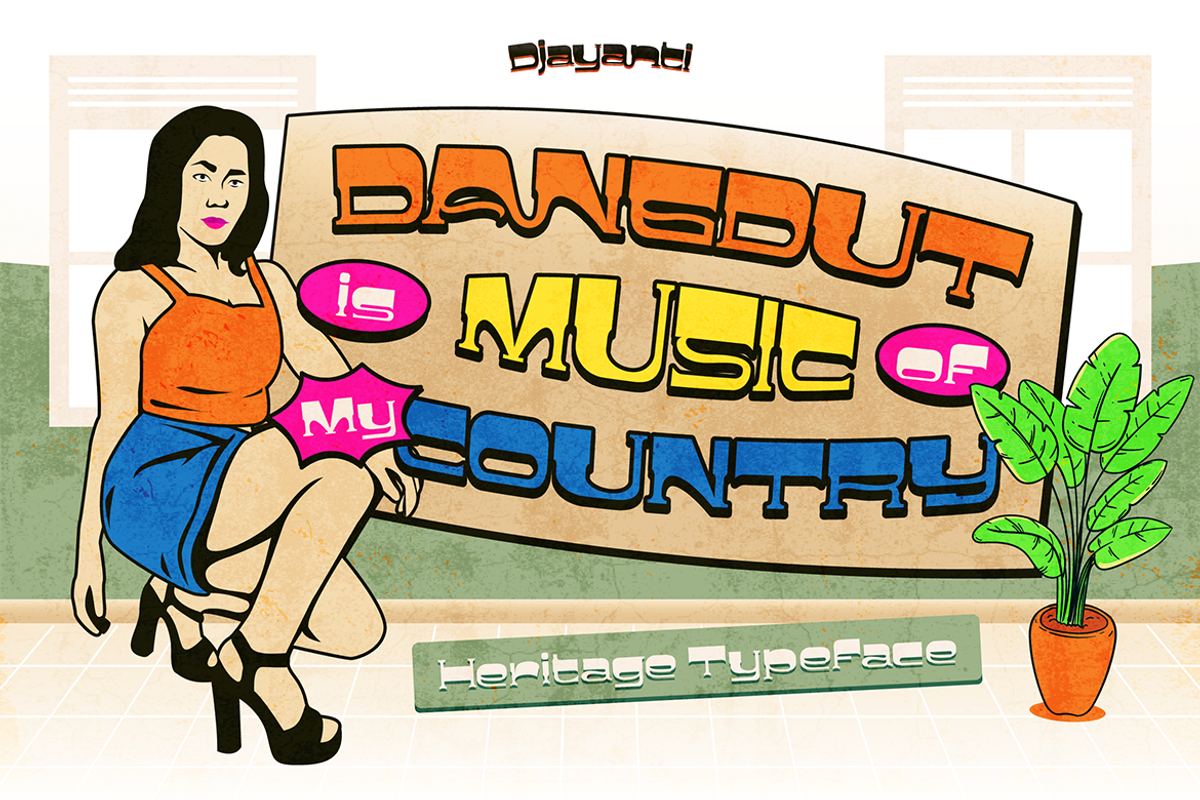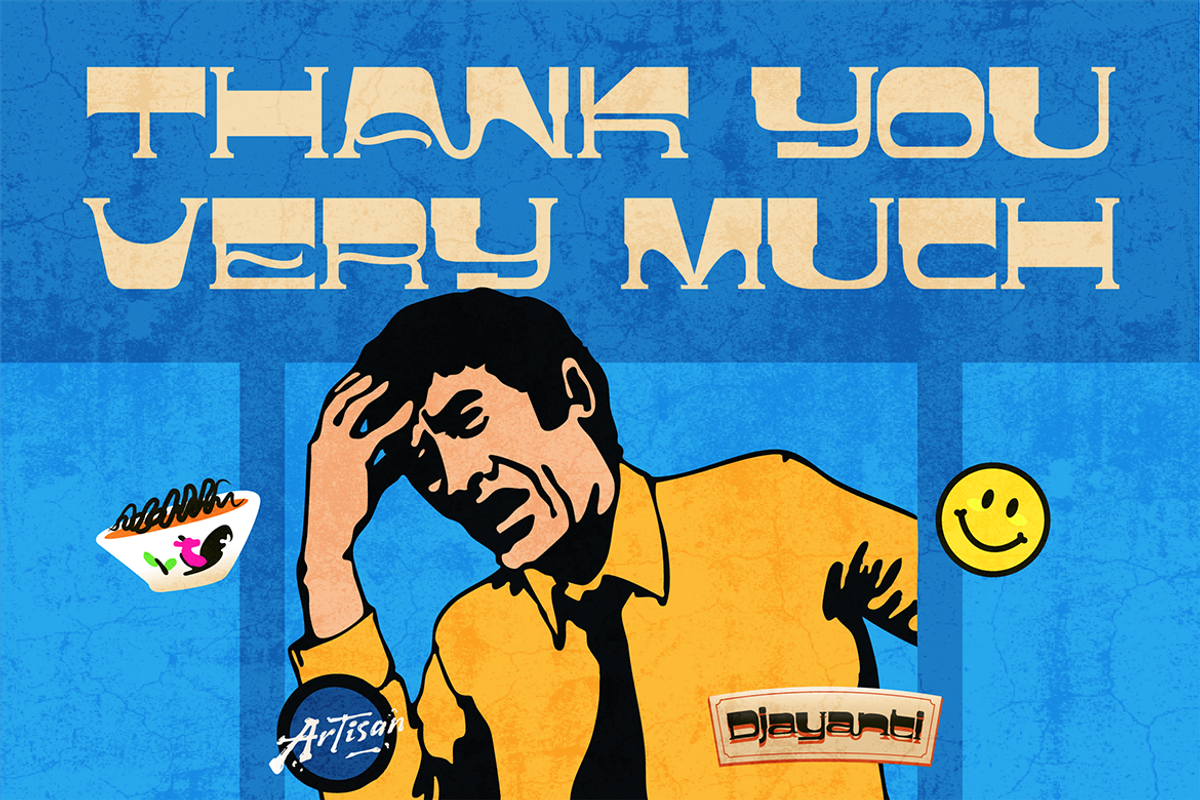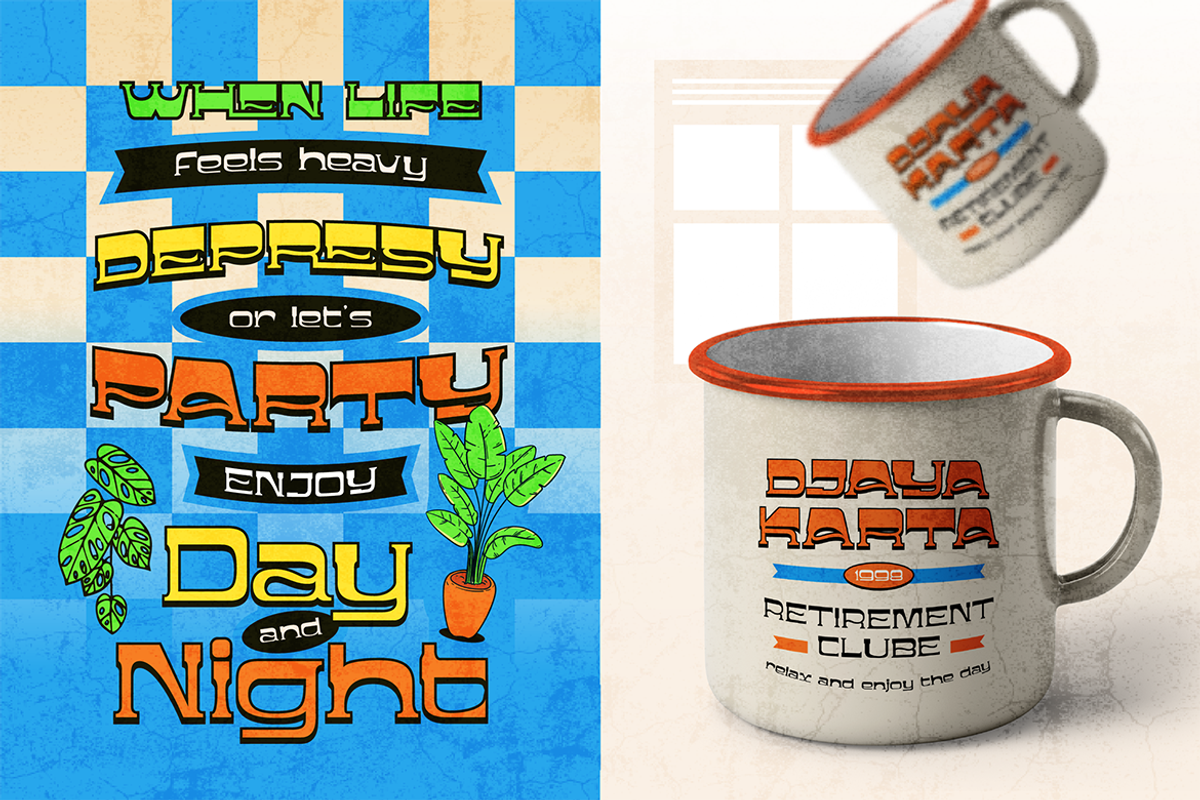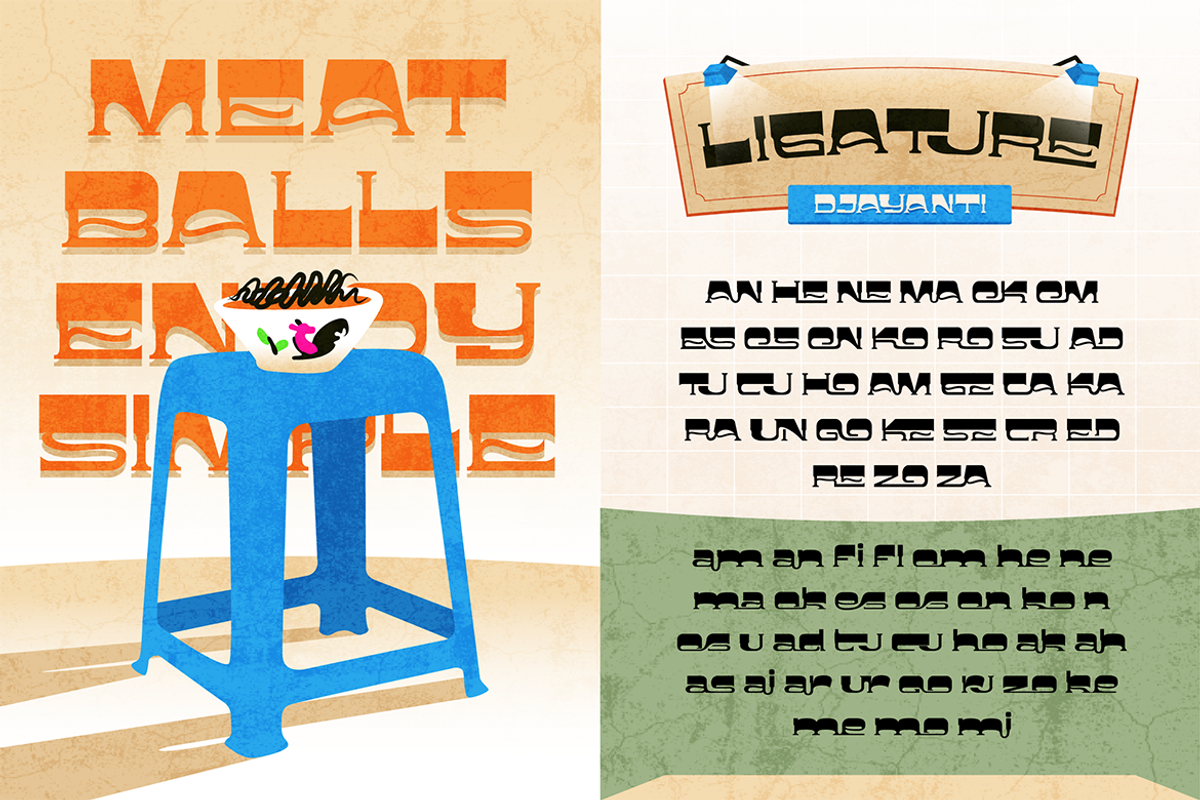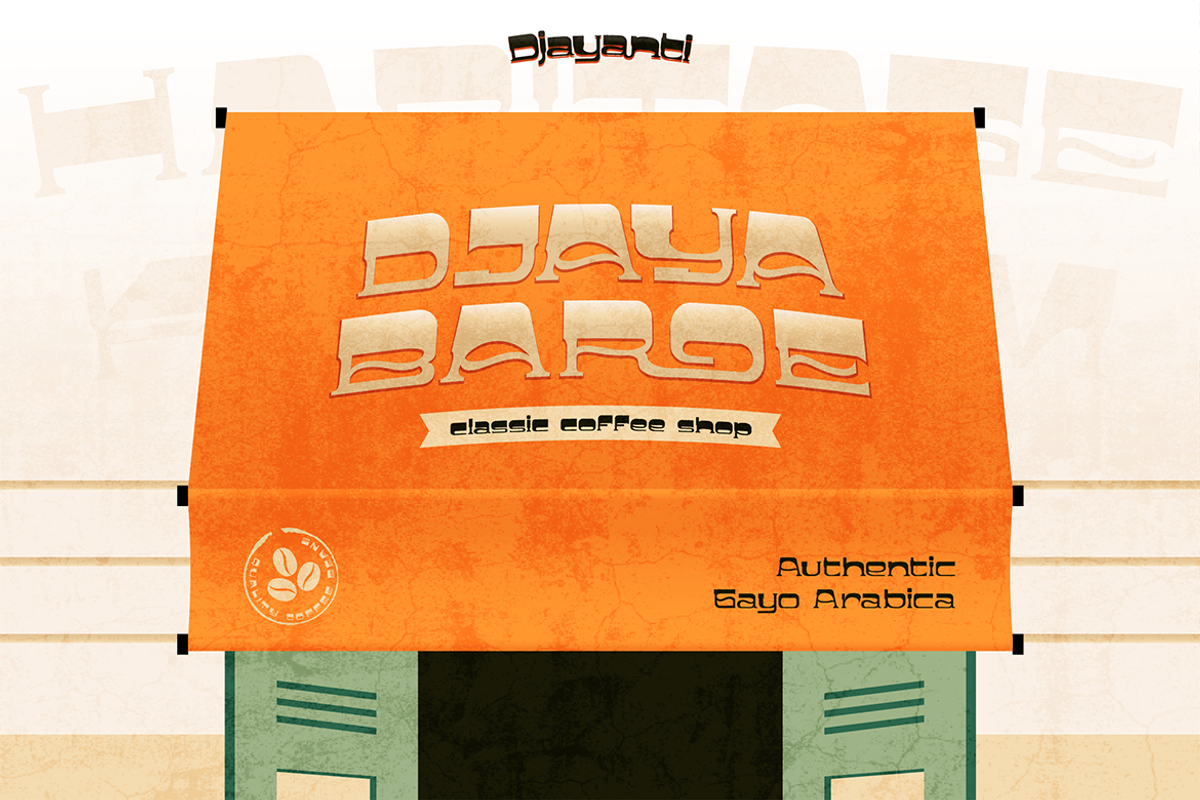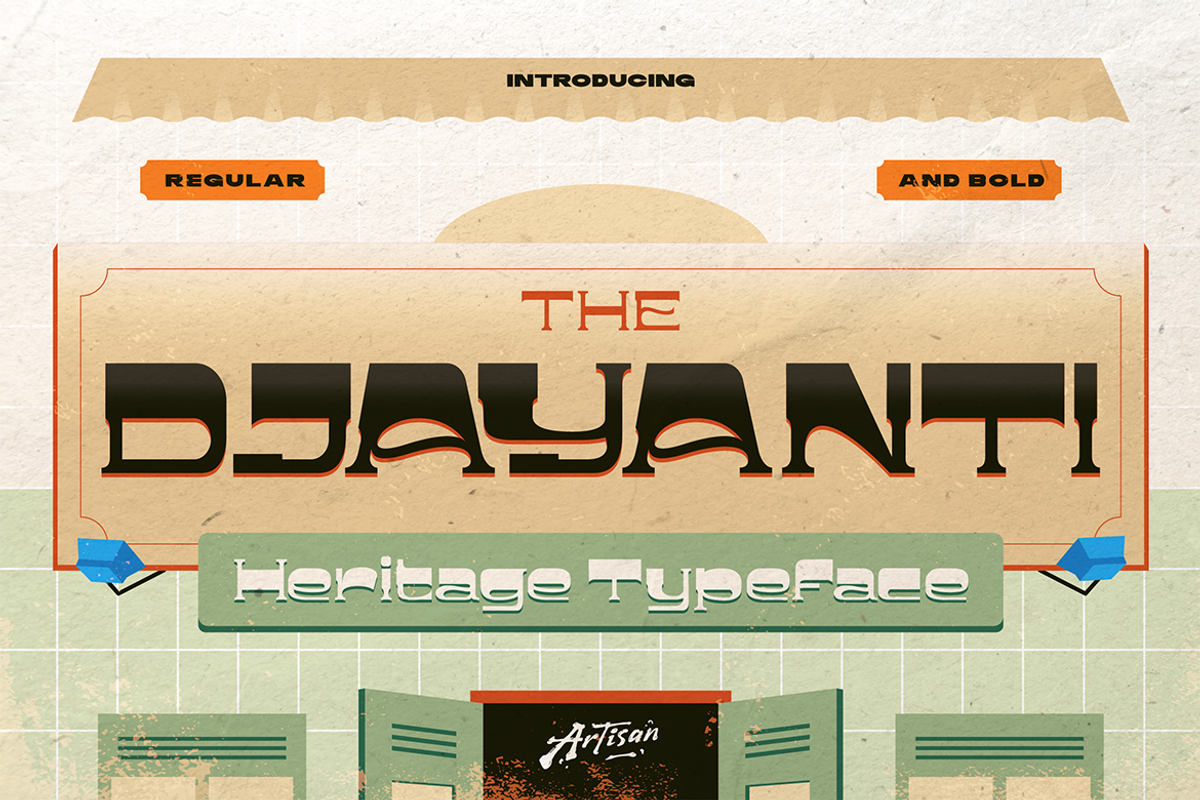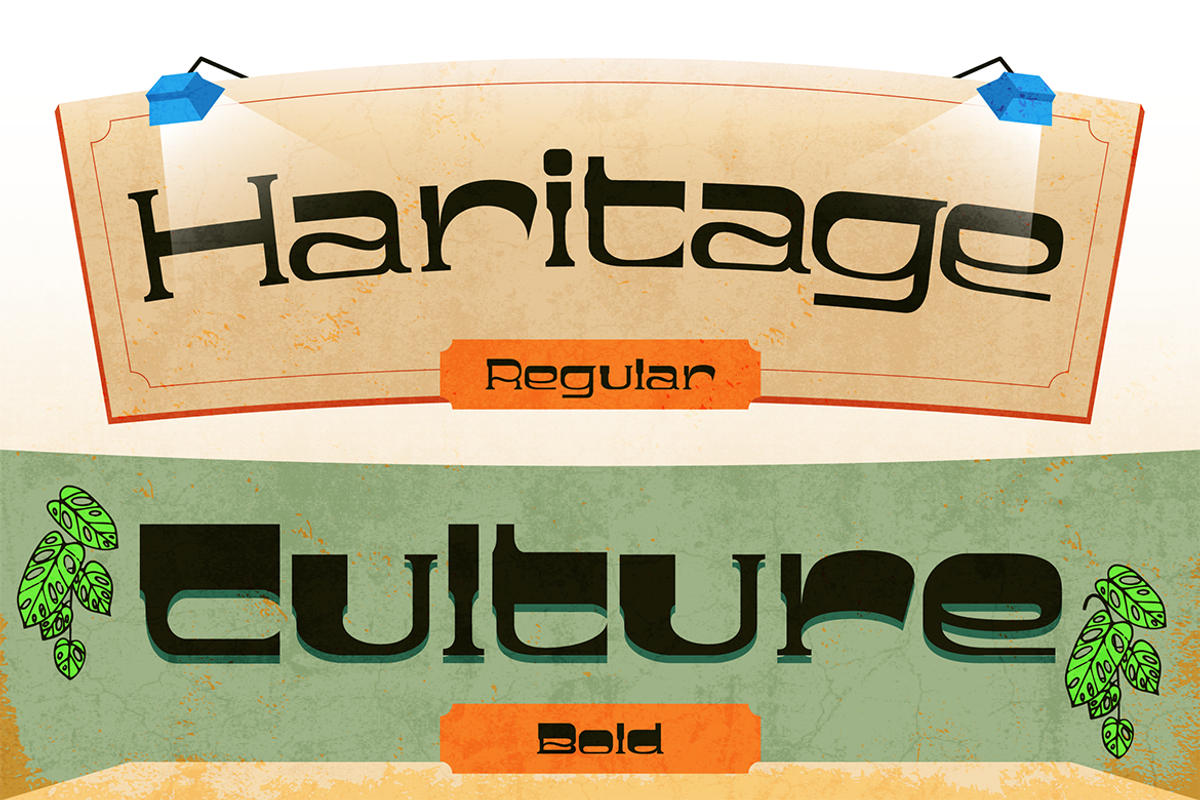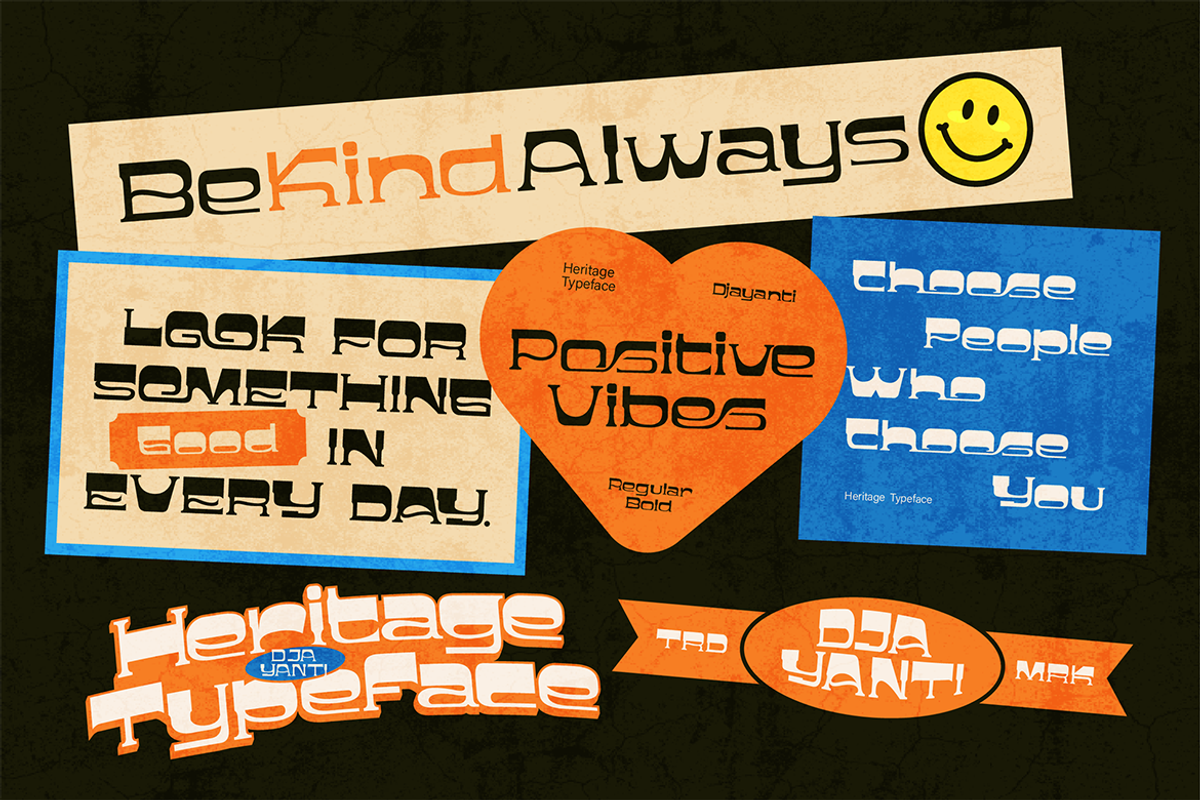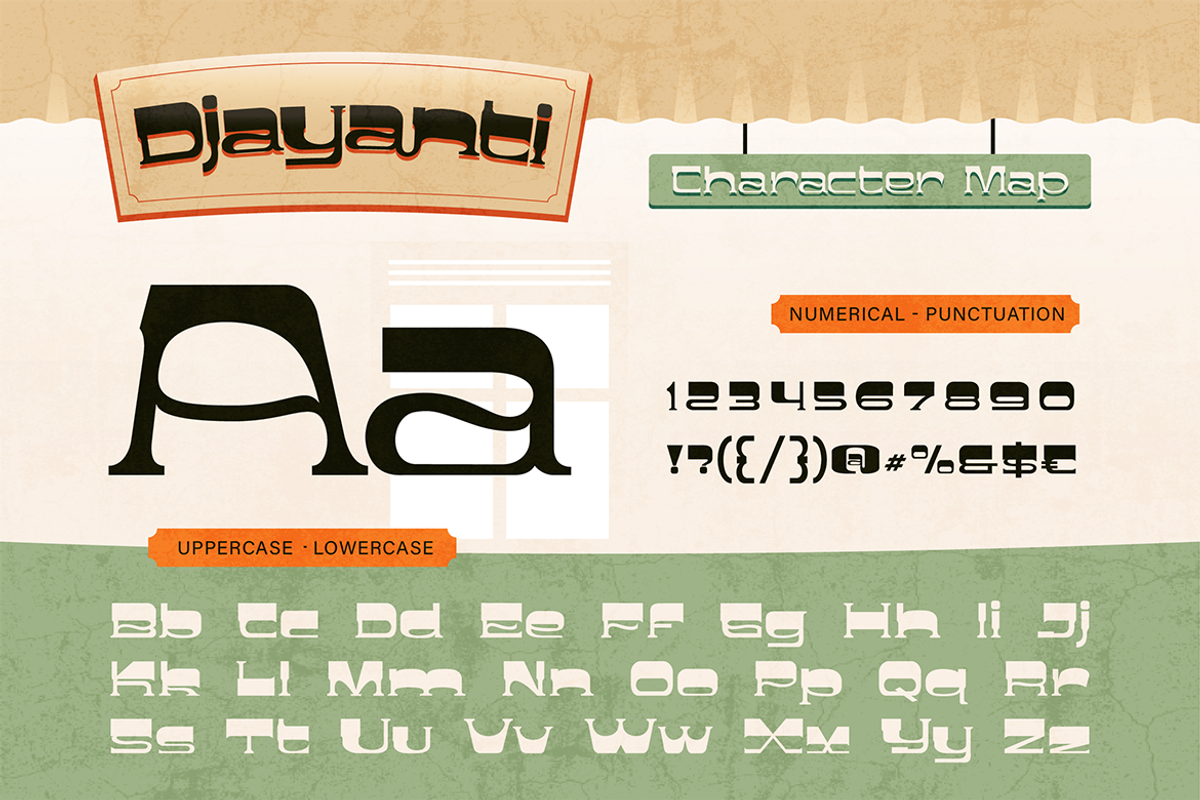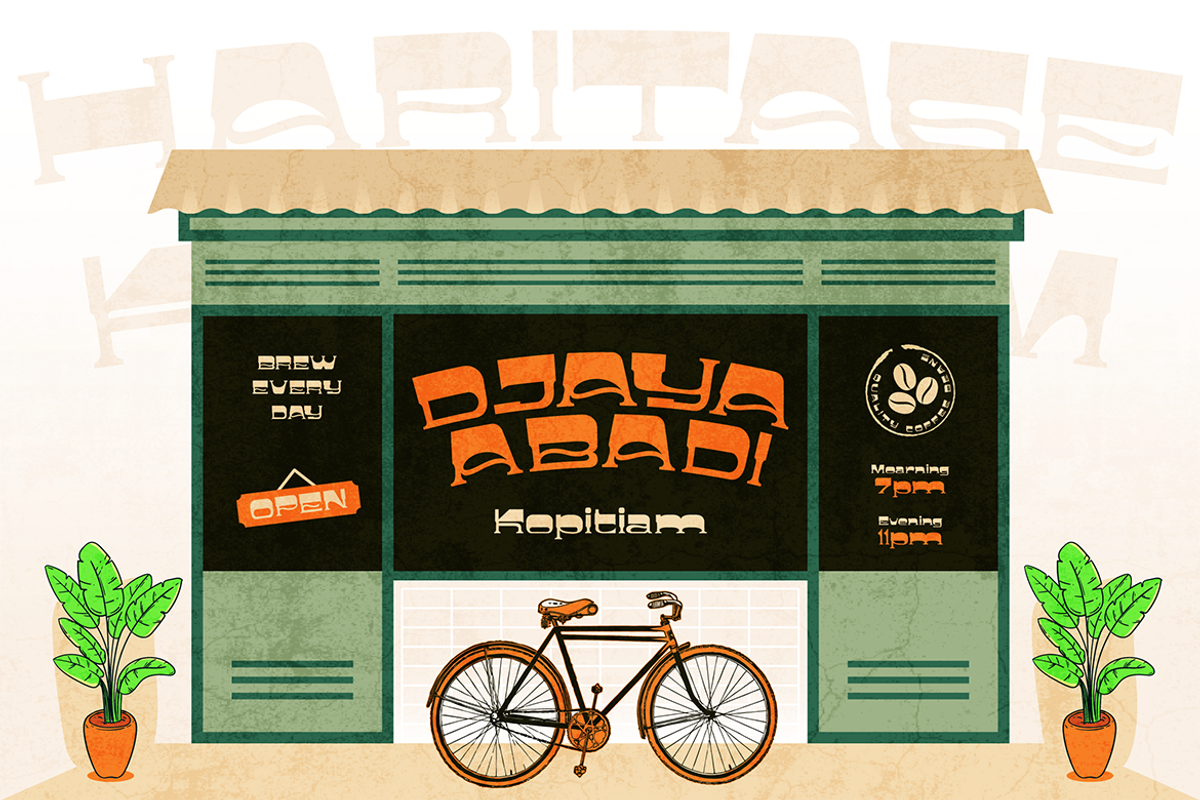
Djayanti
Djayanti is a bold heritage-inspired typeface that blends traditional Southeast Asian signage with a fresh, modern twist. It carries that retro kopitiam charm, but wrapped in a stylish, editorial look that feels right at home in today’s design scene. With its unique letter curves, playful cut-ins, and slightly quirky rhythm, Djayanti brings personality to any layout whether you're designing café branding, nostalgic posters, travel journals, or vintage-inspired packaging. The font comes in Regular and Bold, making it super flexible for headlines, quotes, logos, menus, and anything that needs an authentic cultural character with a cool editorial touch.